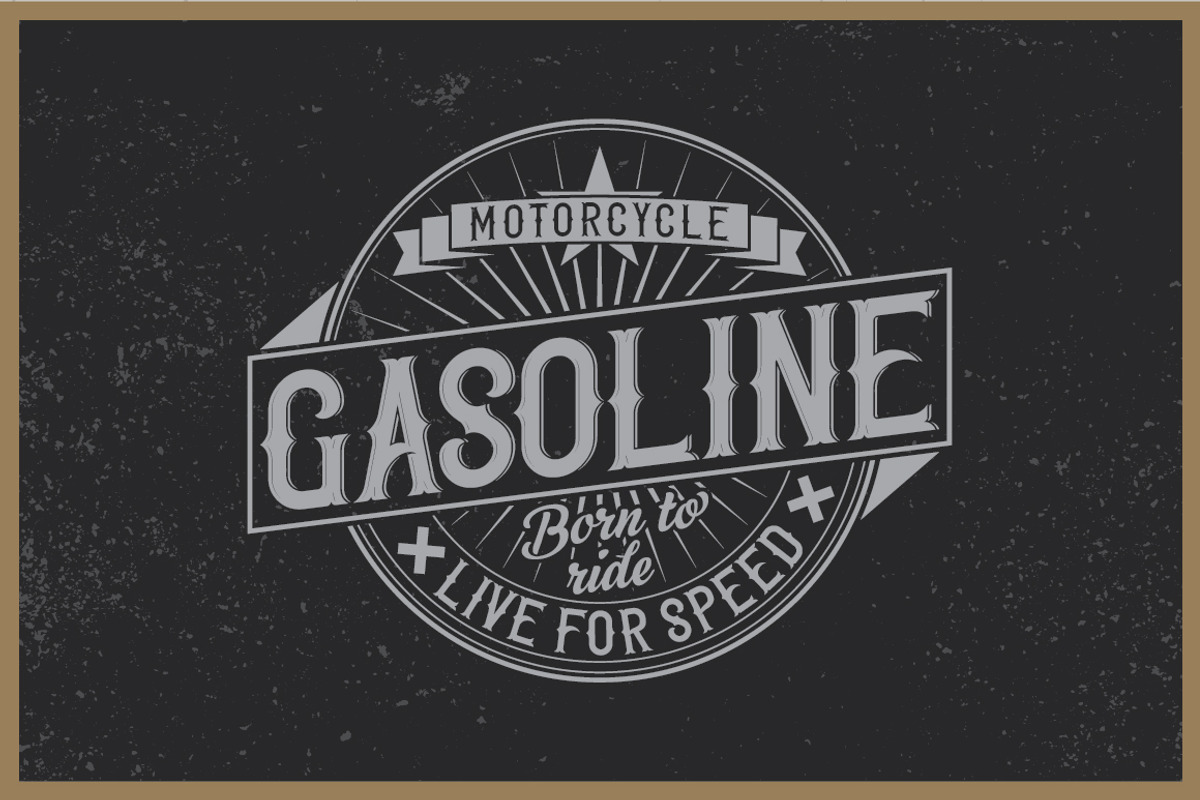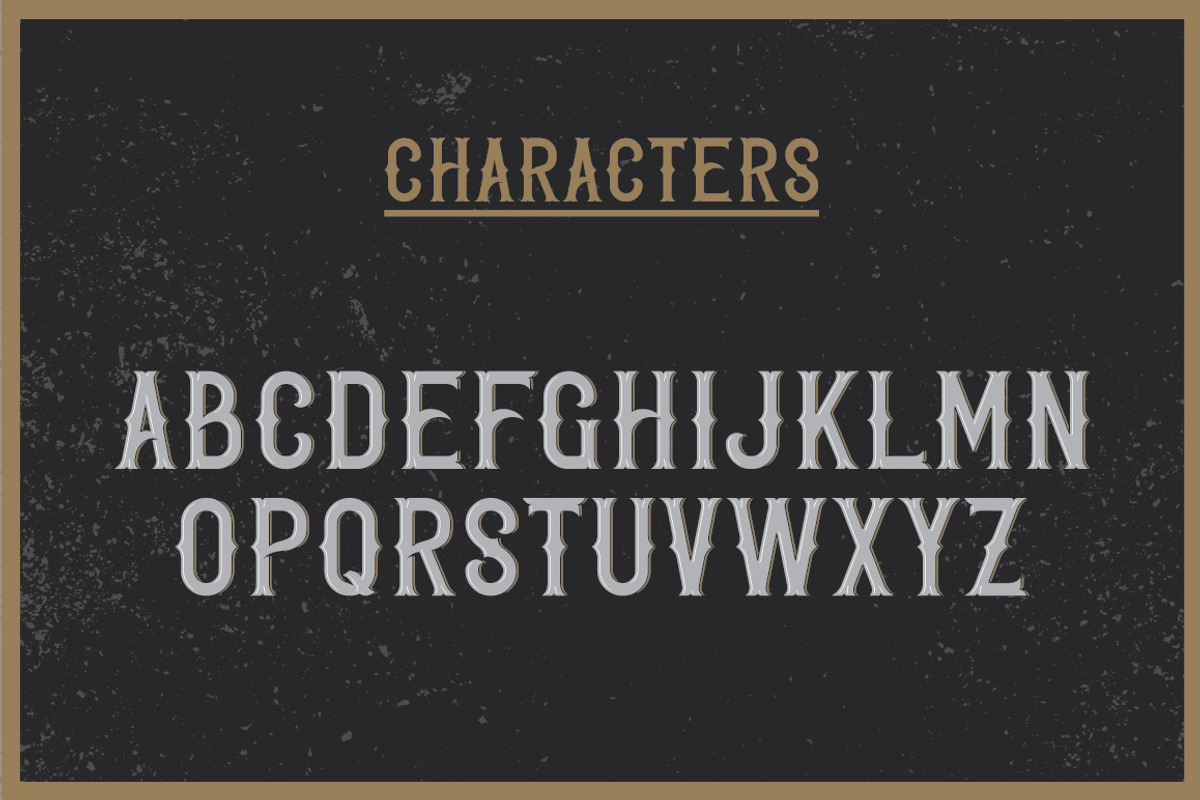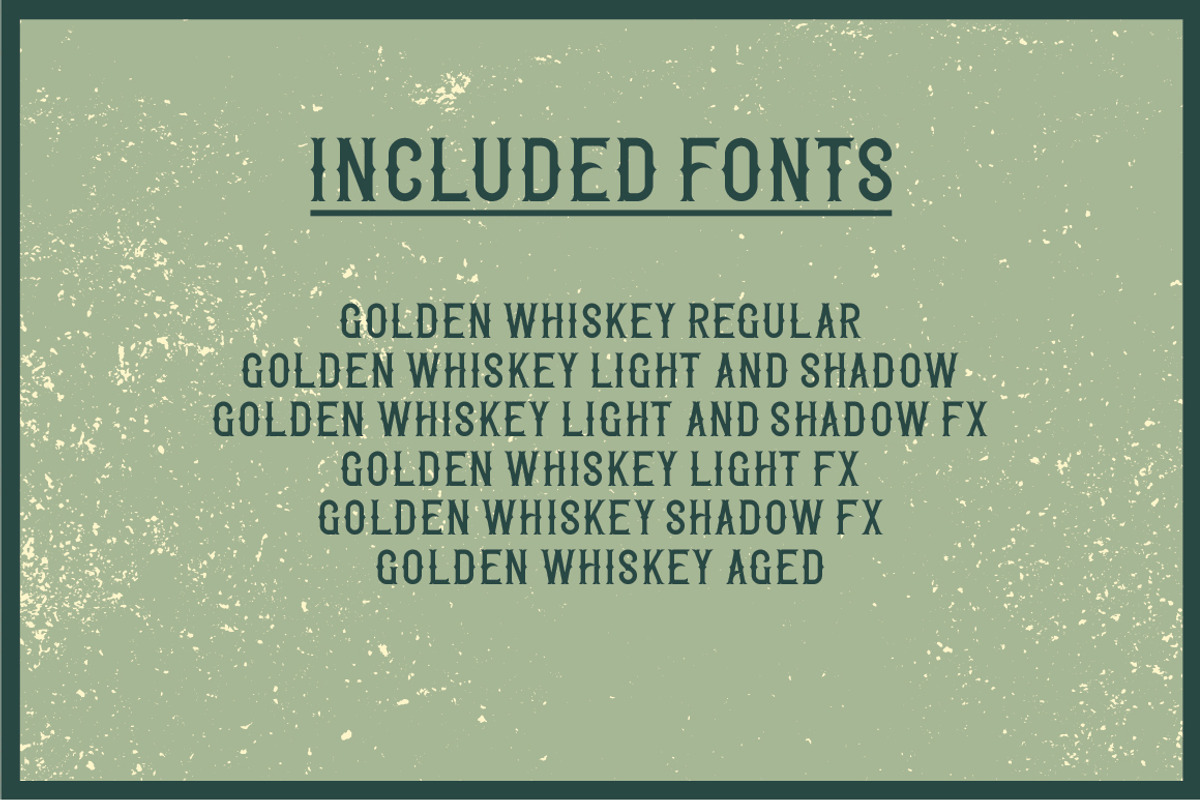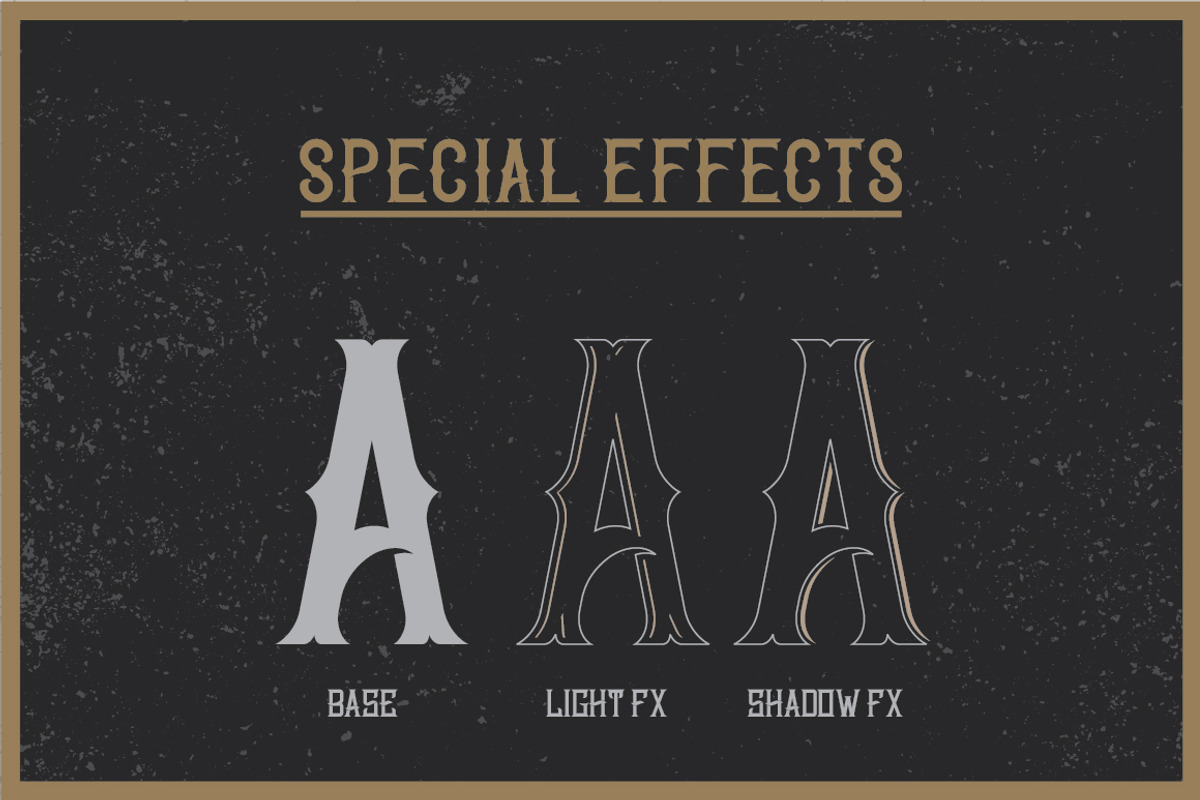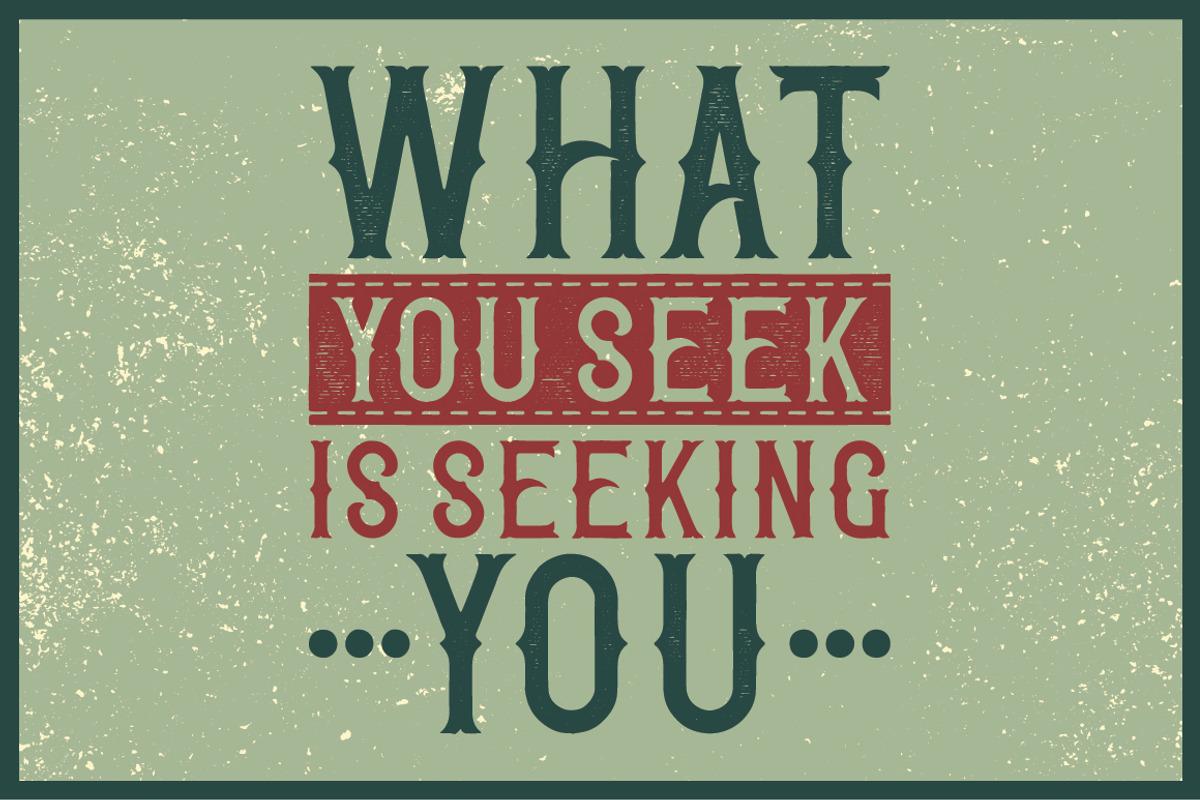
Golden Whiskey typeface
Golden Whiskey typeface by VozzyStock is a font selected for branding, posters, packaging, typography.
- 5 fonts in complect with special effects, plus aged version
- You can mix light, texture and shadow effects (look at 4-th screenshot)
Why Golden Whiskey typeface is worth a look
Golden Whiskey typeface by VozzyStock fits naturally into Branding, posters, packaging, typography.